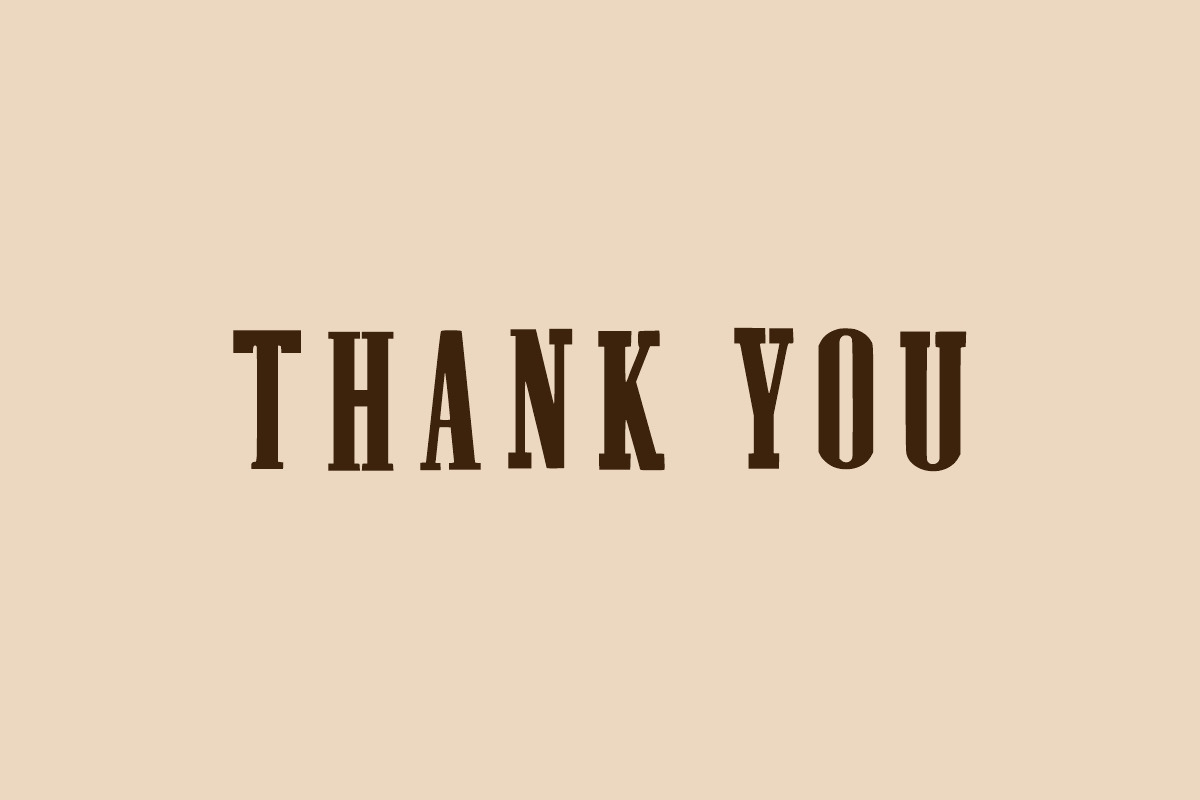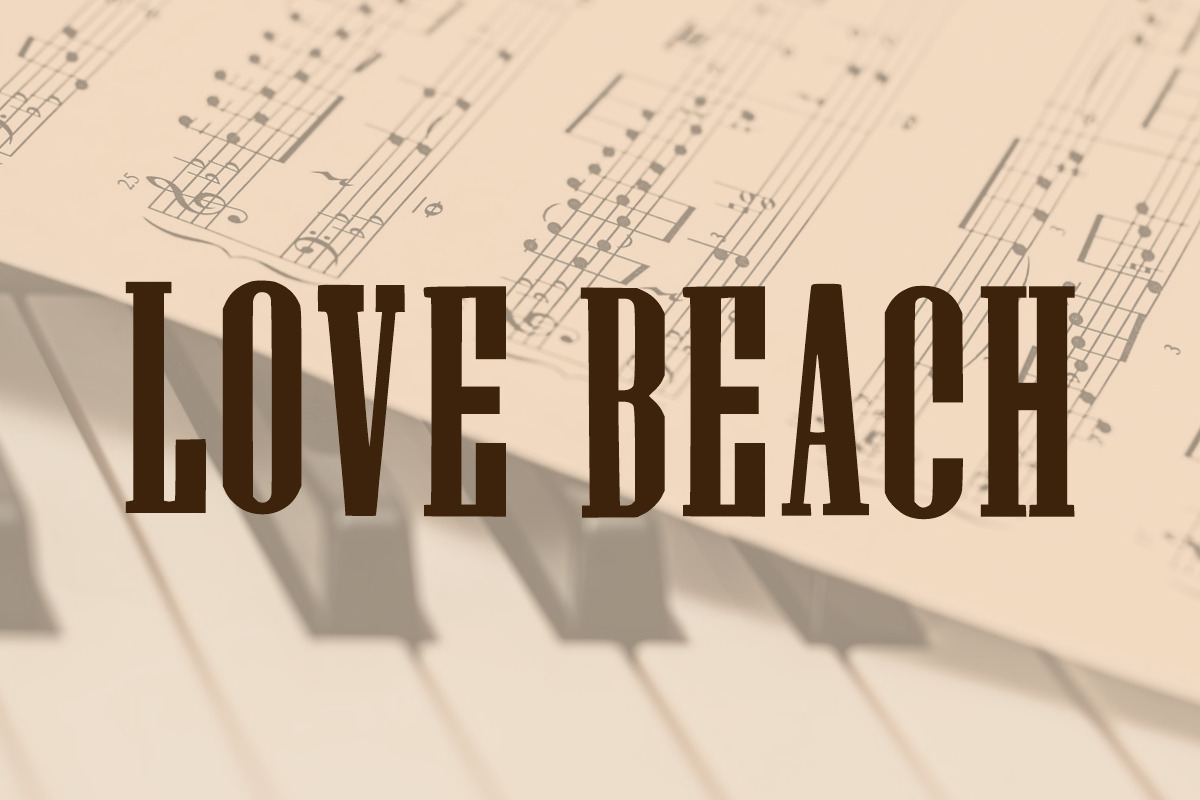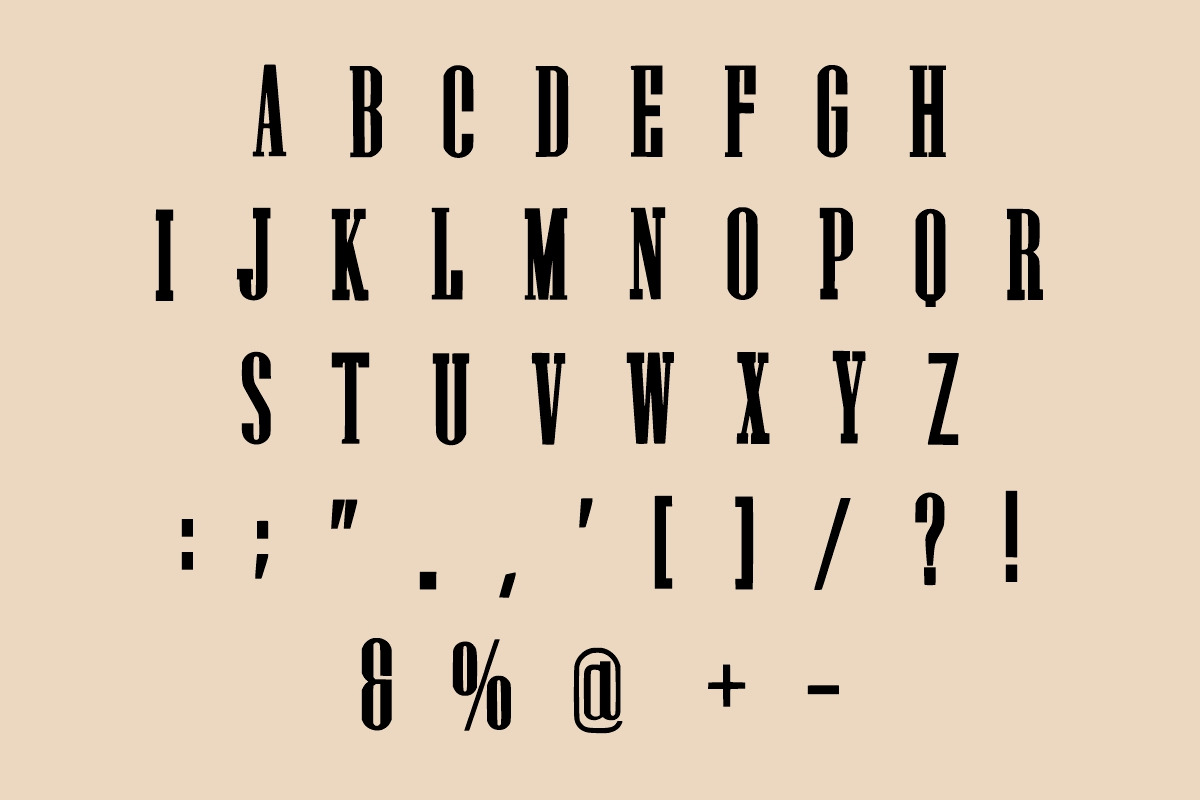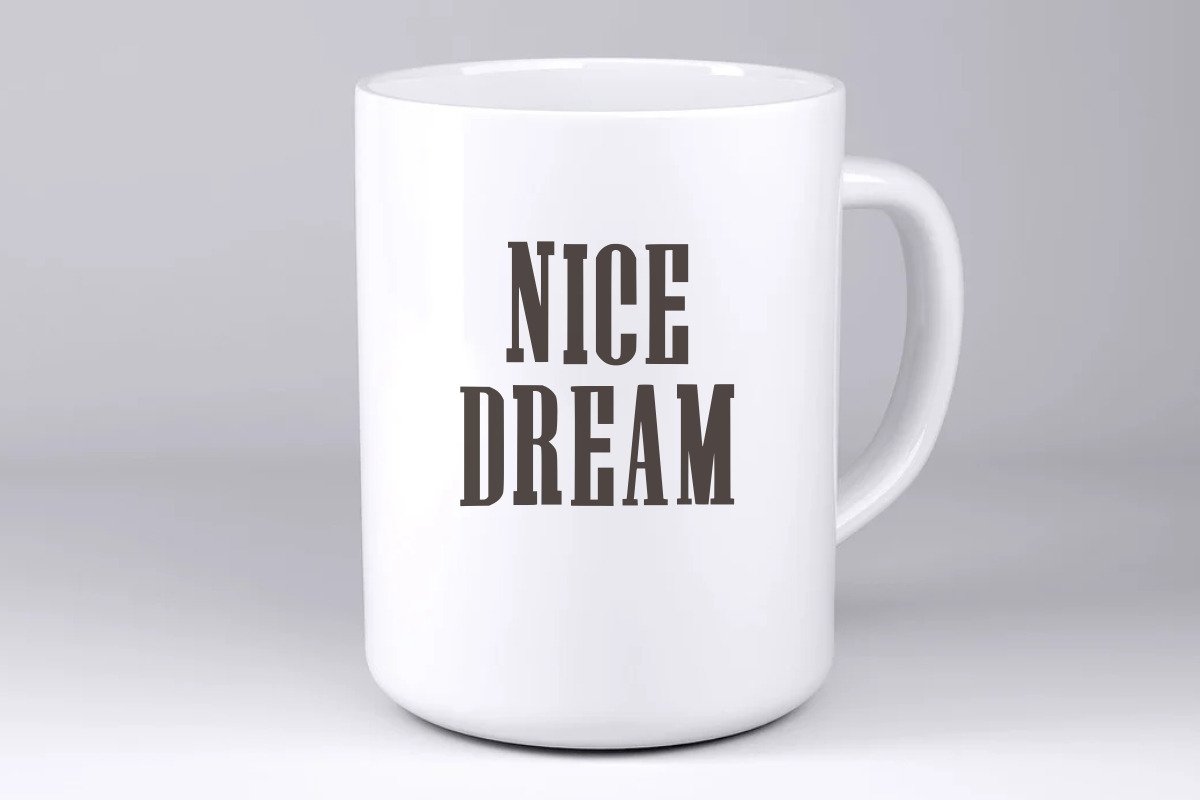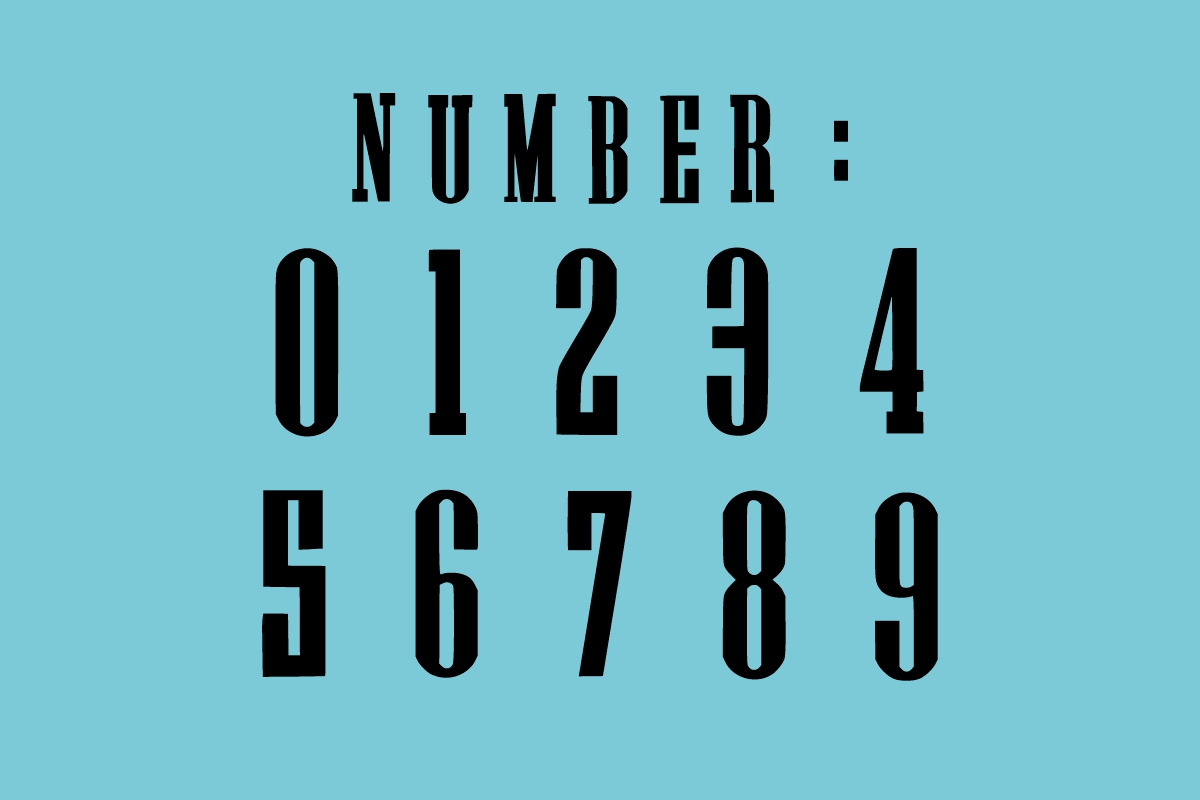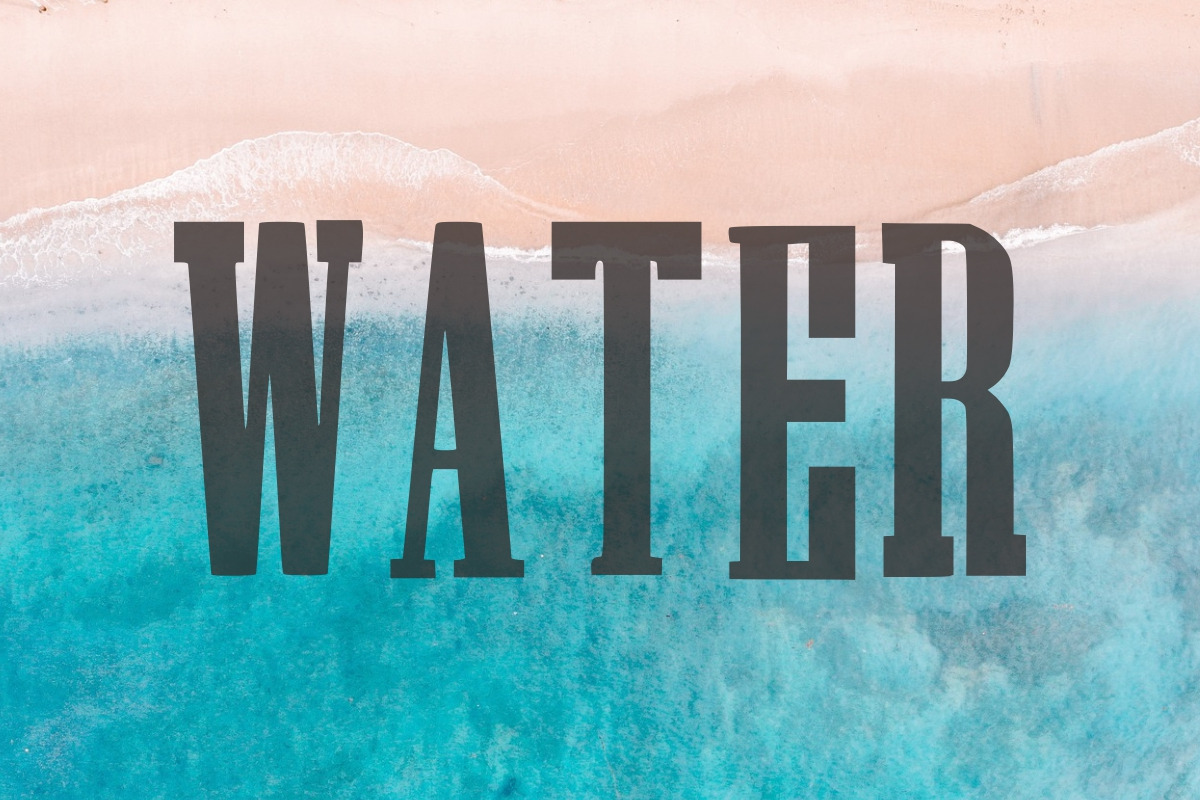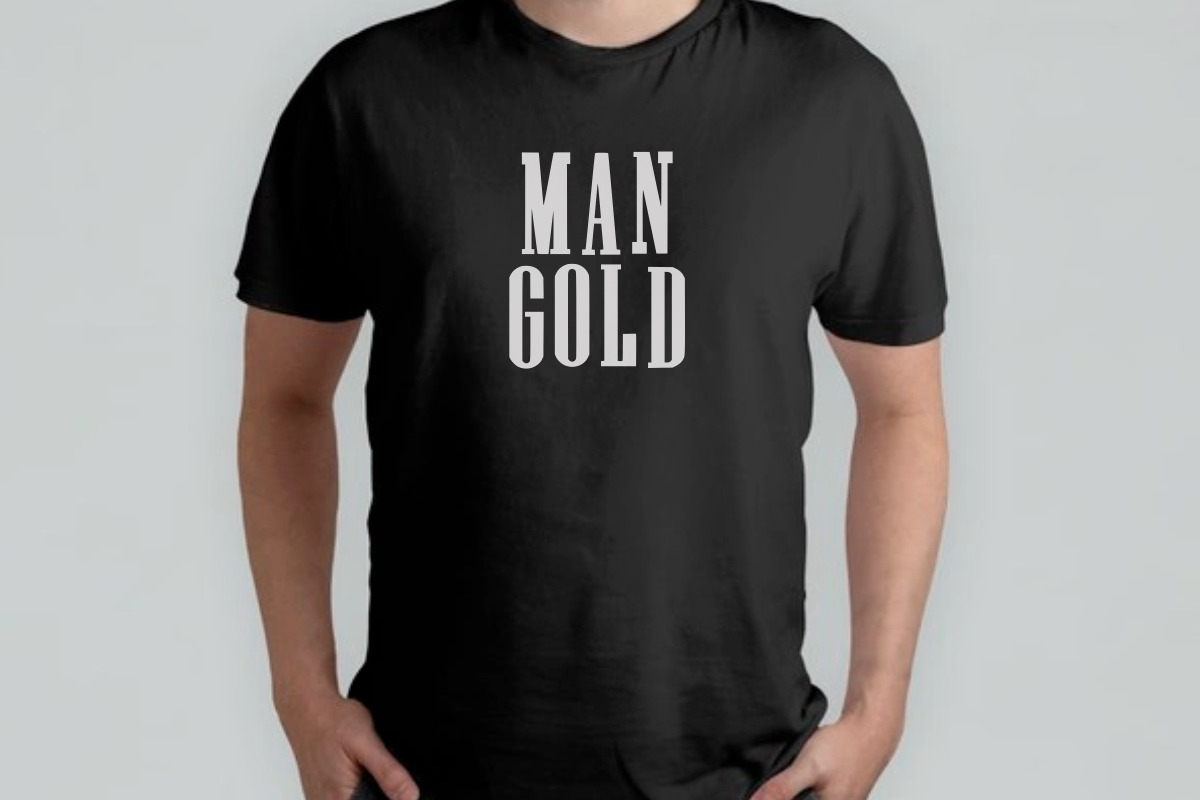
THE BEACH
The Beach is a vintage, classic, retro, and bold display font. You can use it for various projects such as blog posts, logos, branding, ads, invitations, greeting cards, planners, photo albums, decorations, and much more.